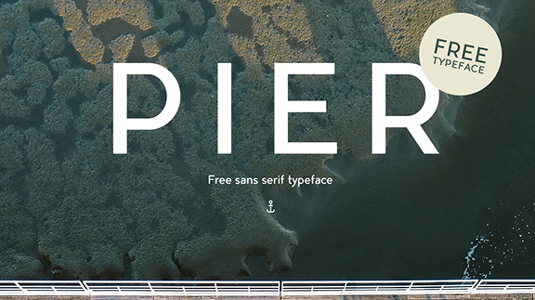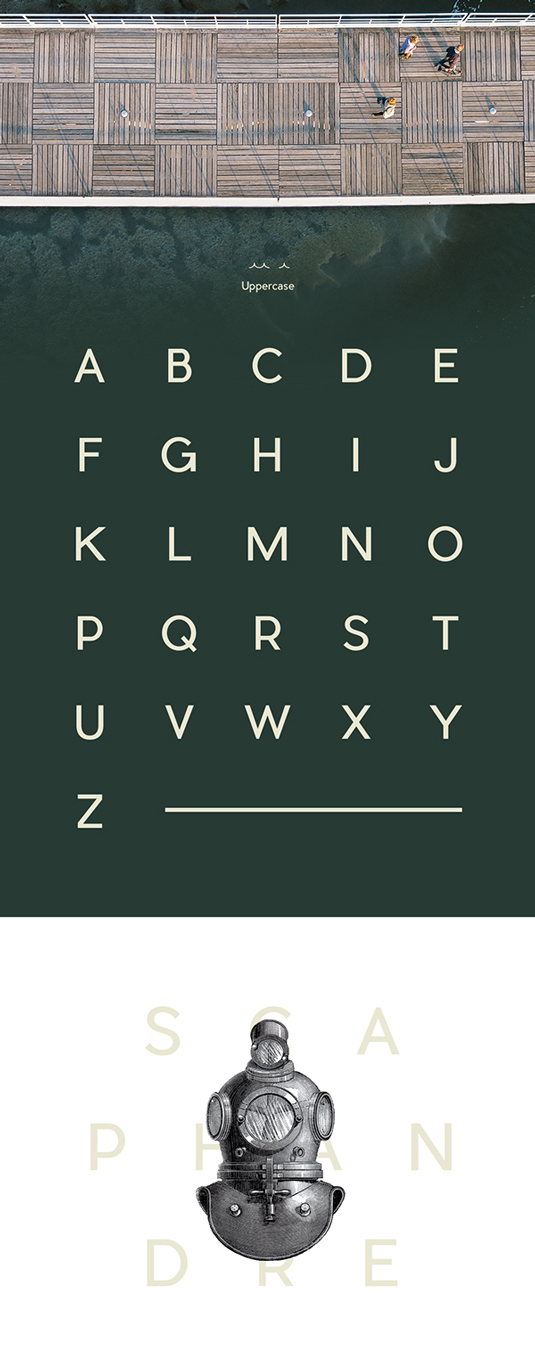
Font of the day: Pier
Every day we showcase the best fonts on the web. Today it's Pier by Mathieu Desjardins, which is totally free to download.
Pier by Mathieu Desjardins
Today's typeface of choice Pier by senior art director Mathieu Desjardins. "Pier is a modern and structured typface," he comments. "The idea was to create a slightly off geometric font that would look good big or very small. It was made to fit your everyday designs and text needs."